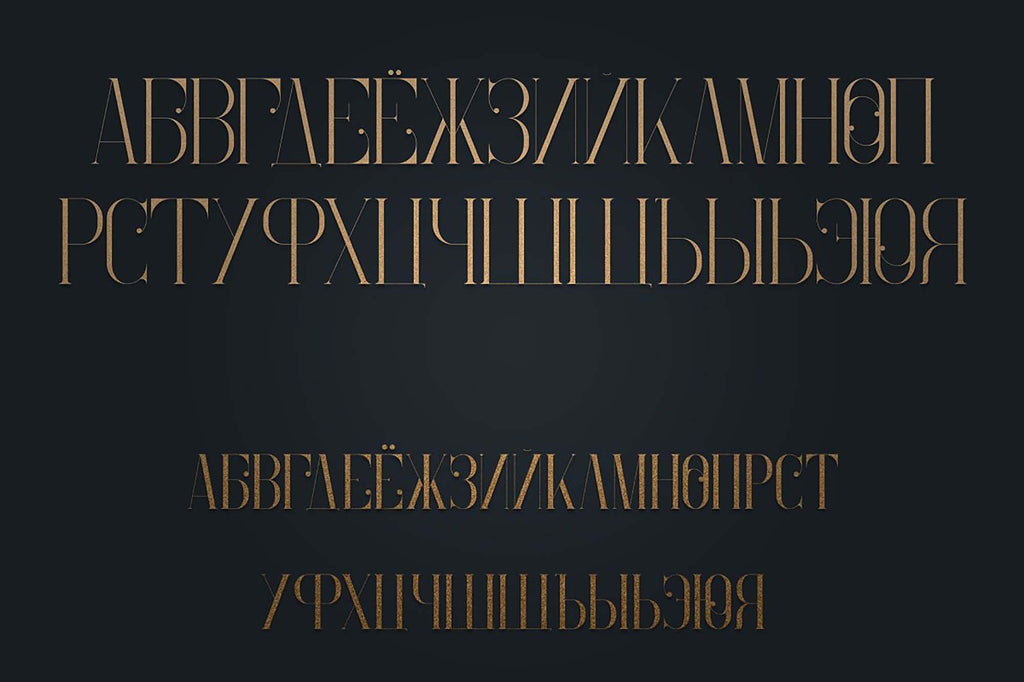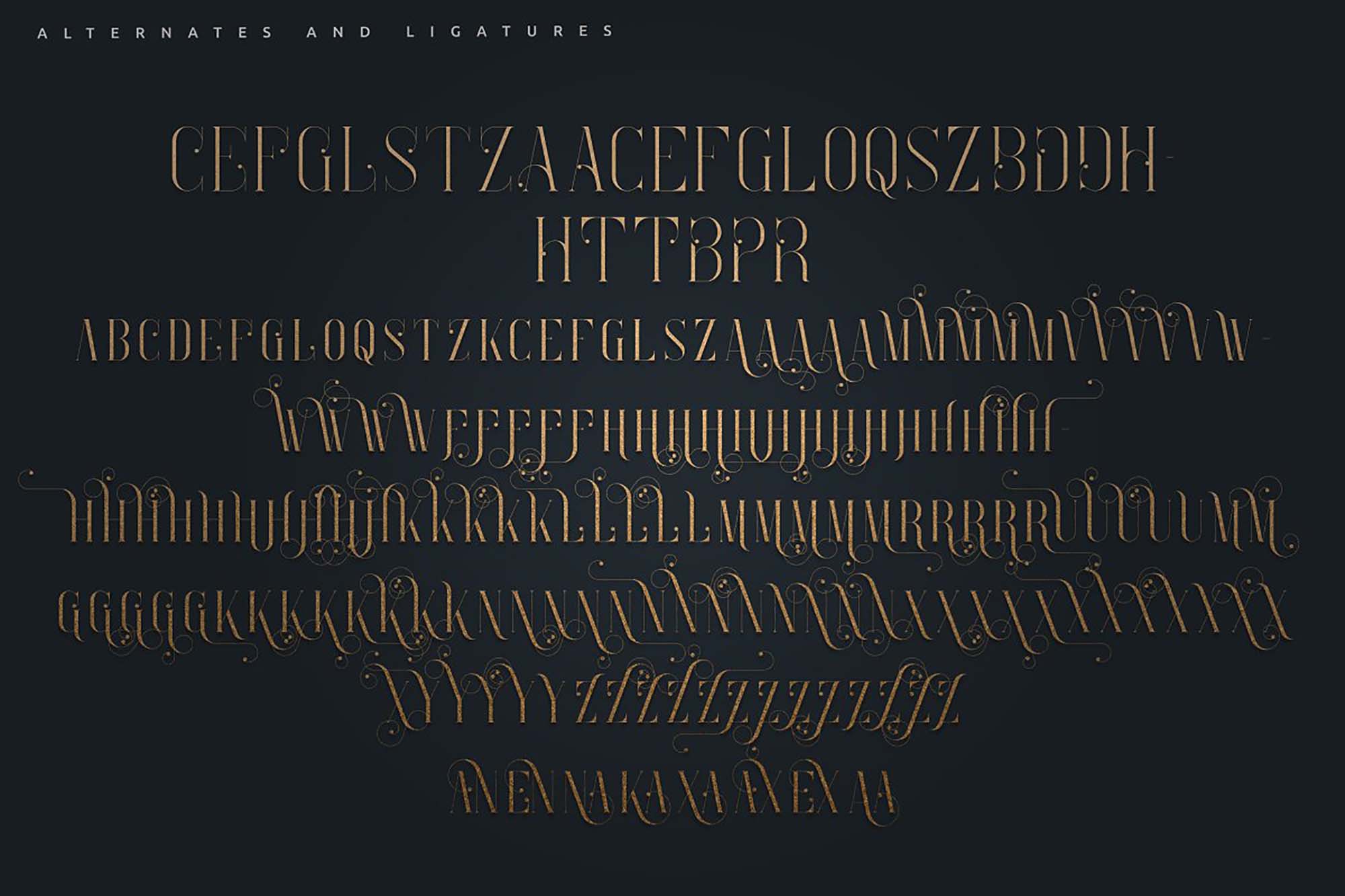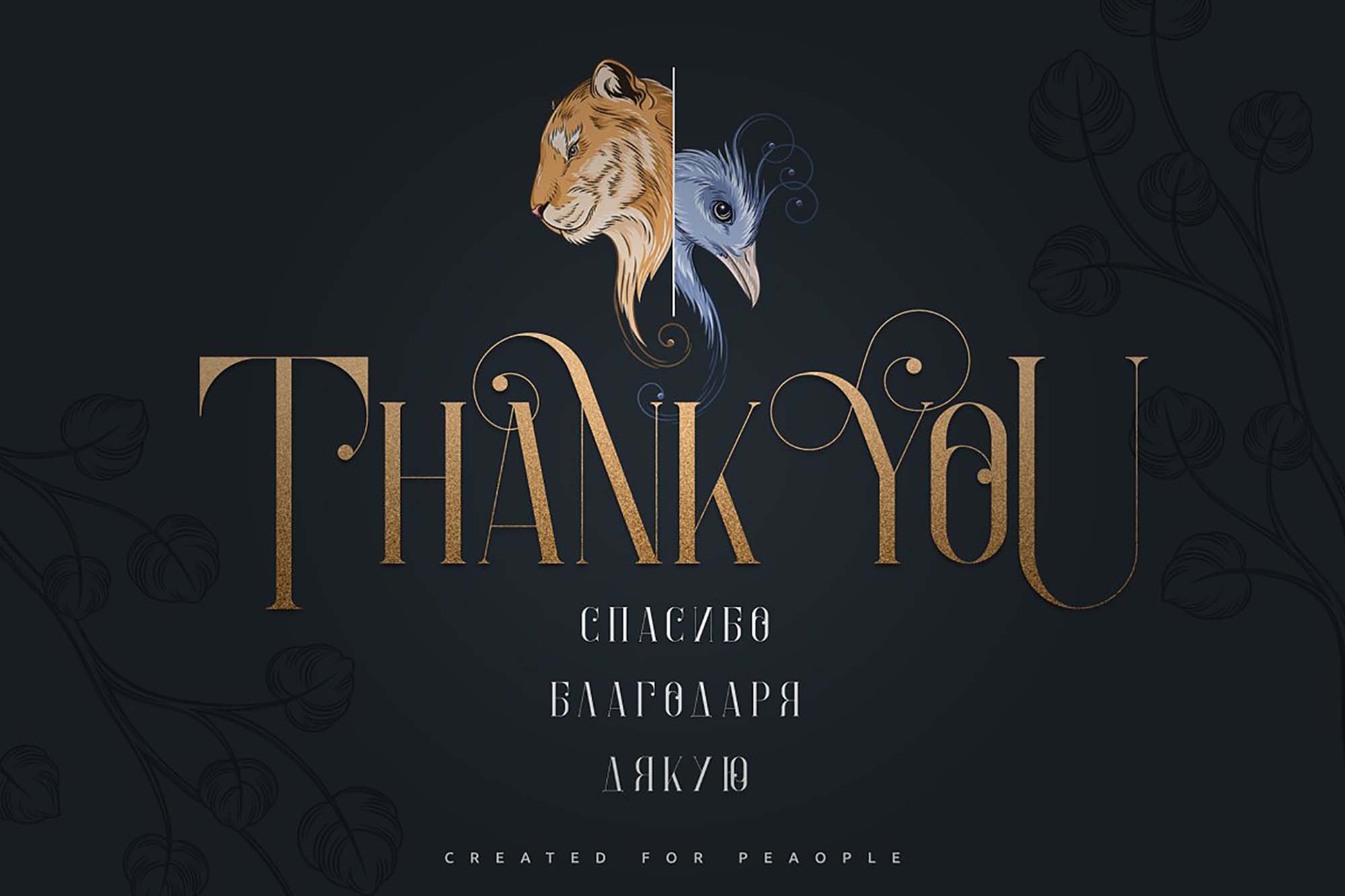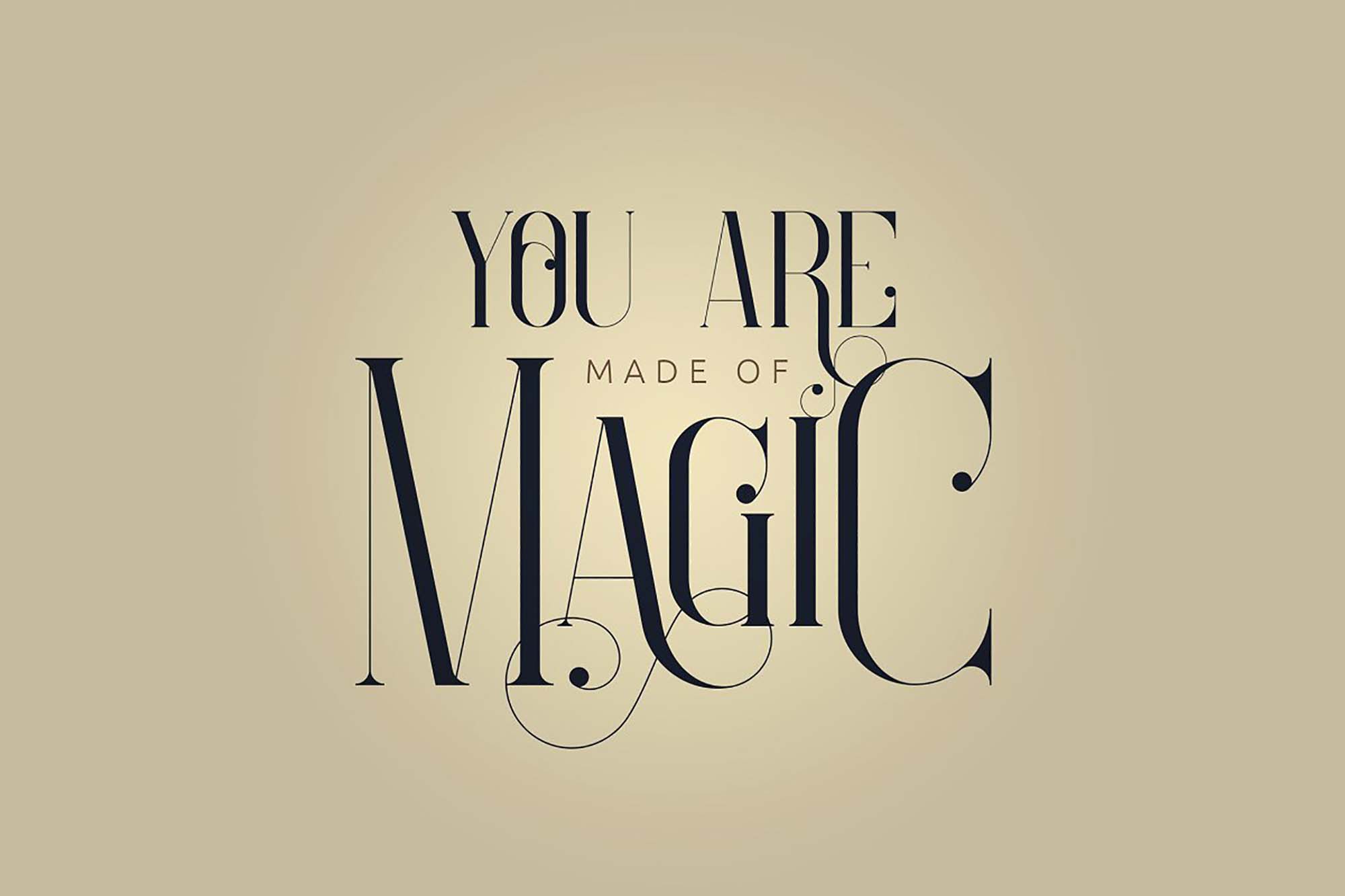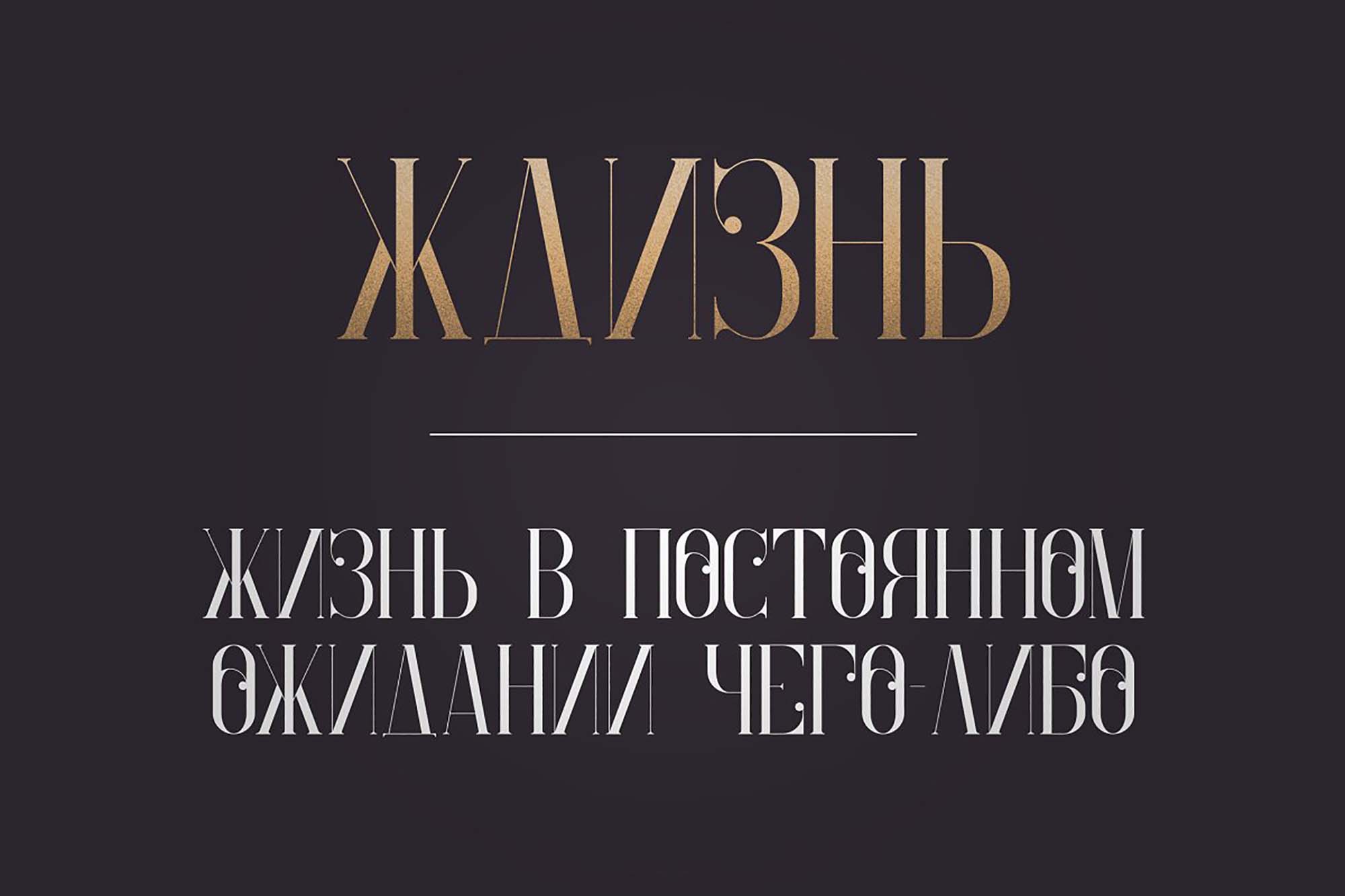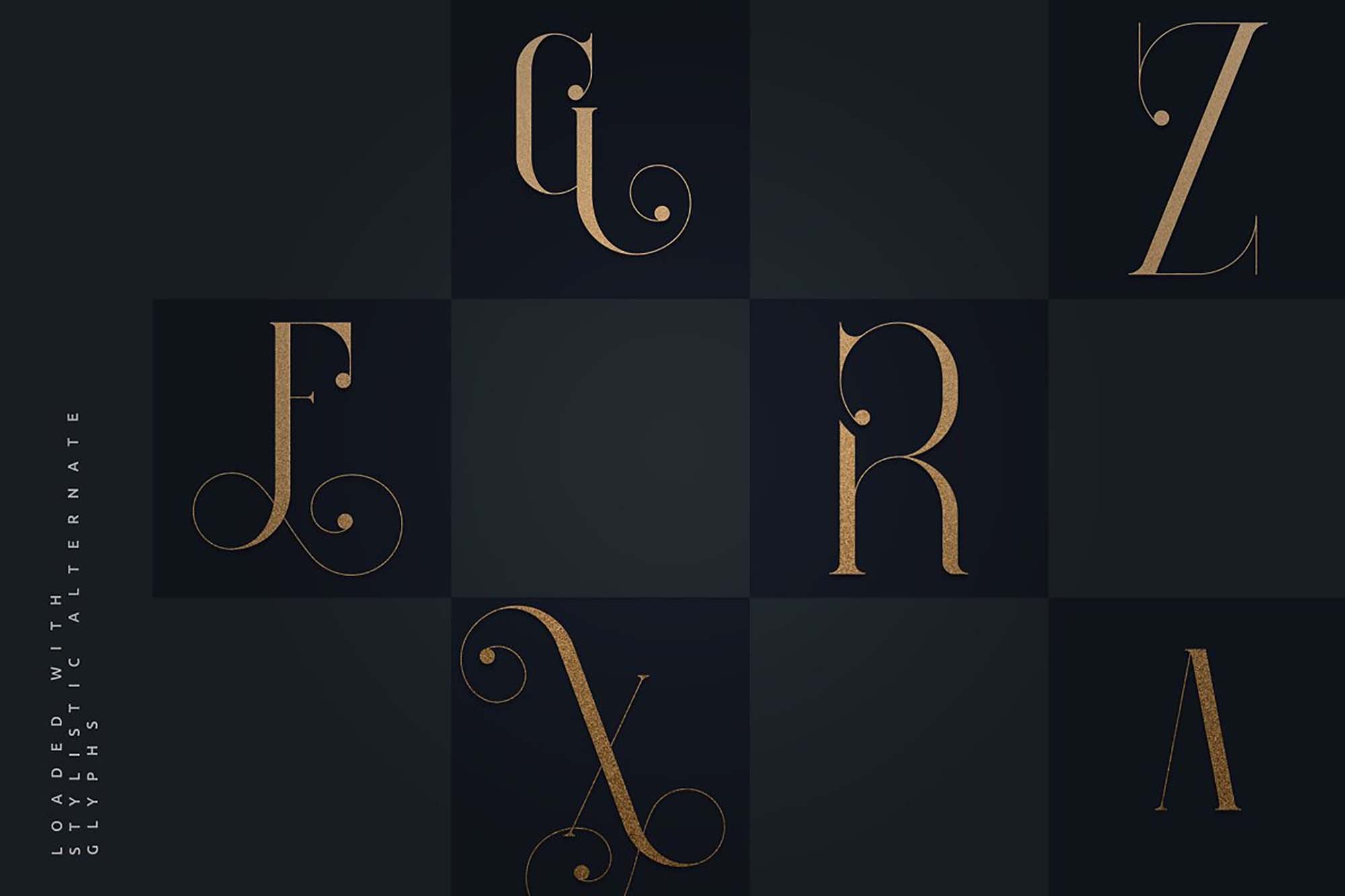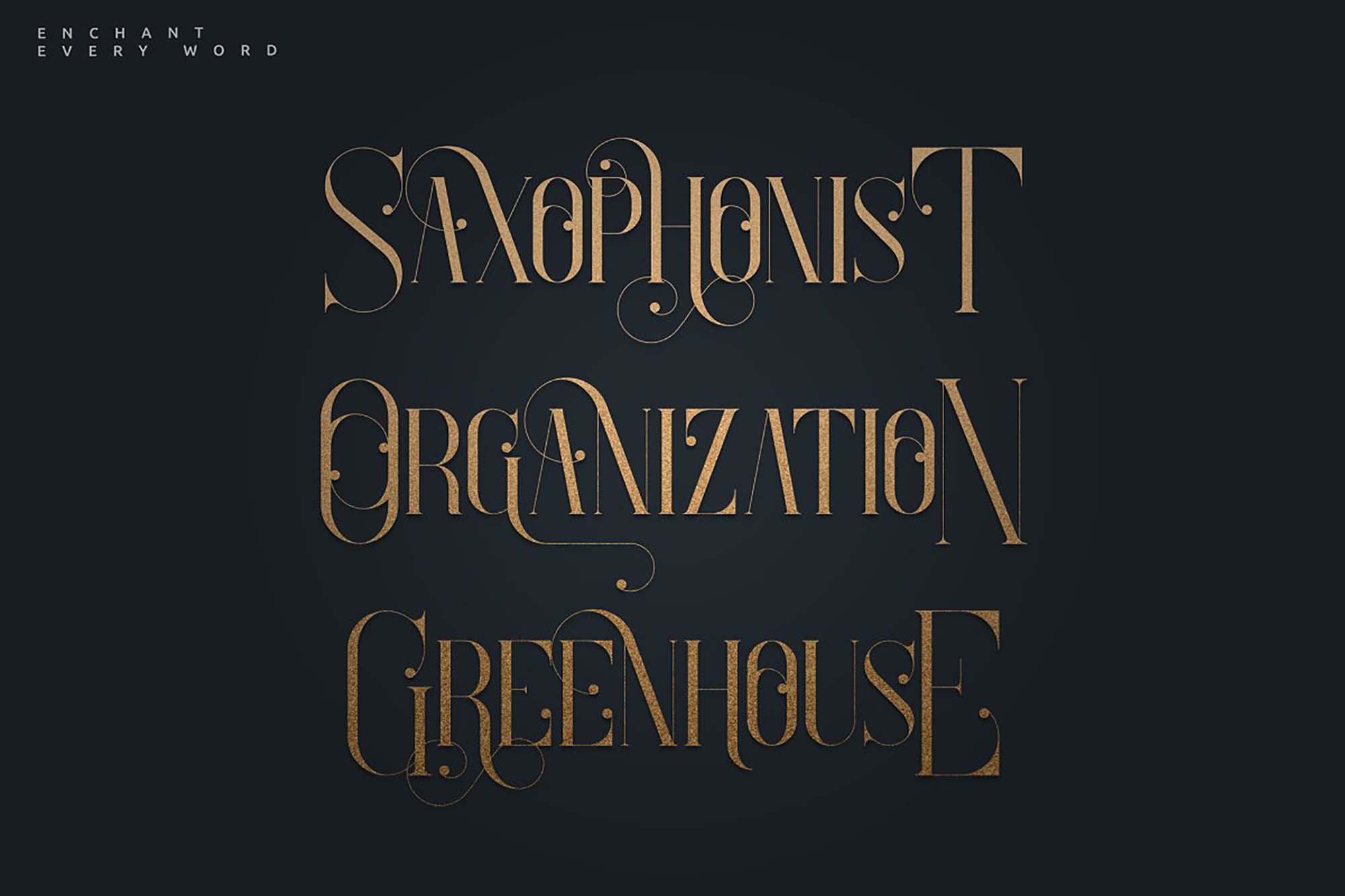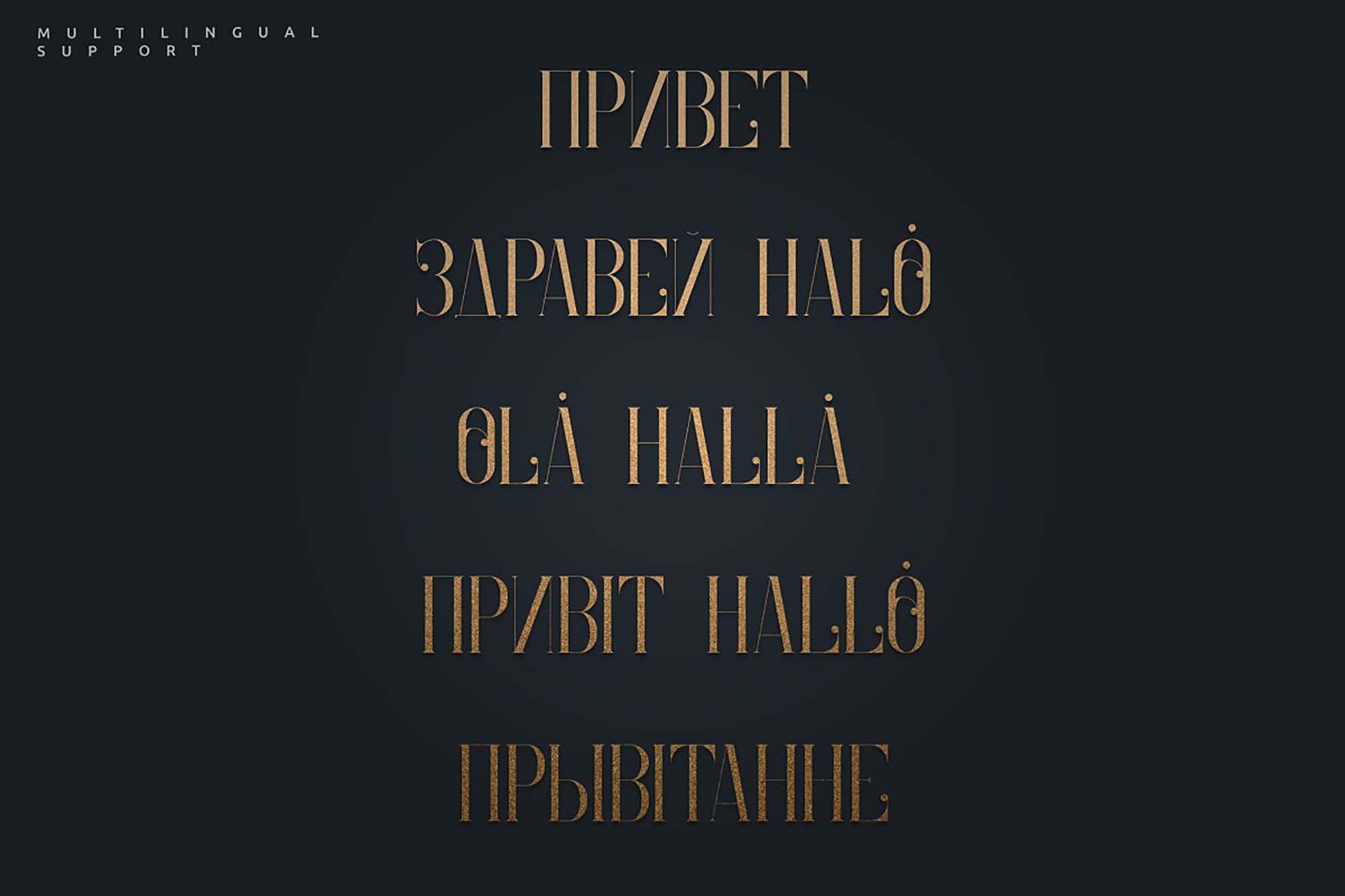
When typography is on point, words become images. Our today’s offering is not just another typeface, but one that would imbue your words with magic. Let us introduce you to Enchants – Magical Font by VP Creative Shop. Clean, mystical and vintage, Enchants offers Latin and Cyrillic support, covering a vast number of languages such as English, Russian, Ukrainian, Bulgarian and more. It comes loaded with alternate glyphs and graphic assets, and provides enough legibility in both large and small sizes.
The only restriction that Enchants imposes is no availability of lowercase: it only comes in uppercase but also packs numerals, punctuations, symbols, and 3 animal design and nature elements to go with it. The designer typeface makes for a great choice when it comes to branding projects, luxury brands, magazine headers, product packaging, or even a stylish text overlay on a background image. Make sure to use it for limited amounts of content and you will be surprised by its elegance and aura.